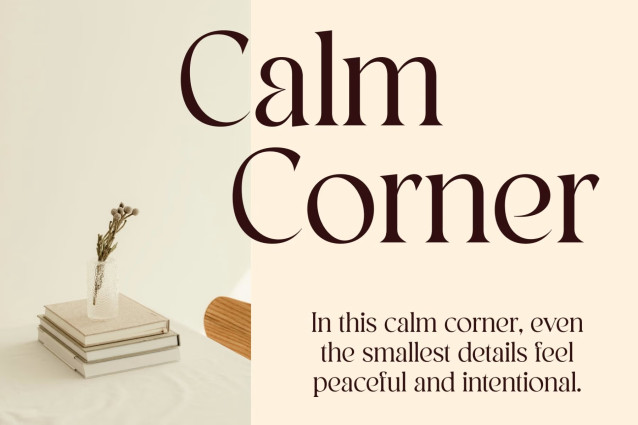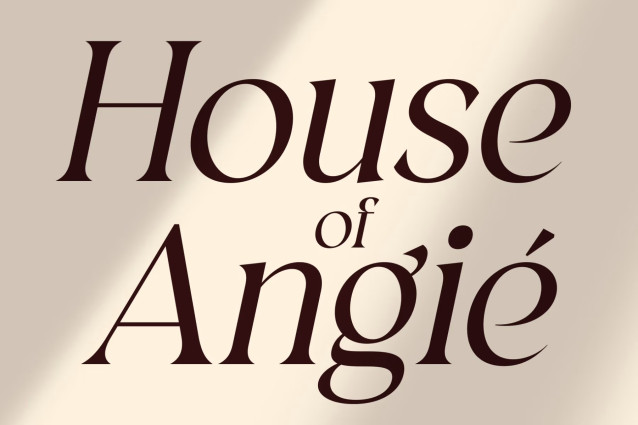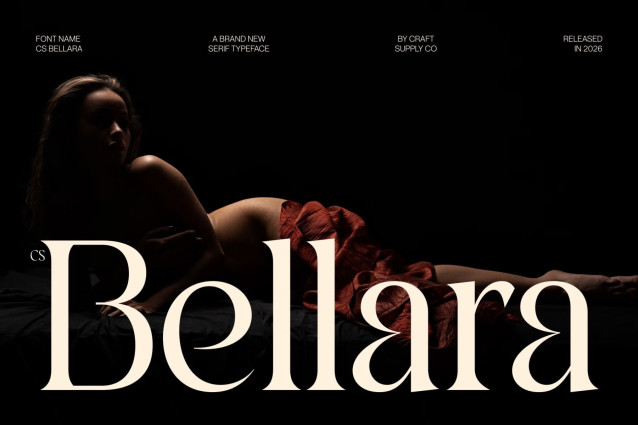
CS Bellara – Modern Serif Font
CS Bellara – Modern Serif Font: Where Slim Elegance Meets Contemporary Refinement
Modern Serif Font
This is a modern serif font defined by its slim proportions, clean construction, and contemporary visual rhythm. It blends classic serif elegance with a modern minimalist approach, resulting in a refined typeface that feels light, sophisticated, and effortlessly stylish. Every character is crafted to deliver clarity with a graceful aesthetic presence.
Slim and Clean Structure
The font features a sleek and slender structure that enhances its elegant personality. Its clean letterforms create a smooth reading experience while maintaining a distinctive high-end visual tone. This balanced simplicity allows this font to shine in both large display settings and refined editorial compositions.